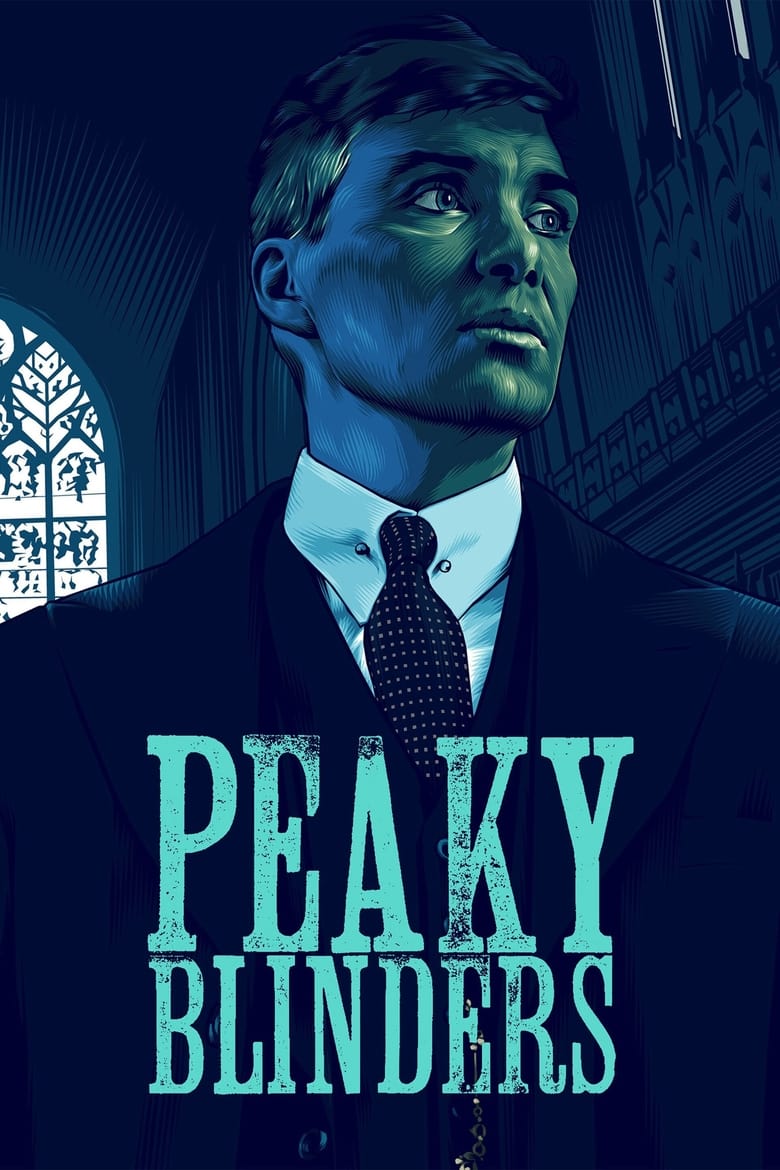
PEAKY BLINDERS
About the Peaky Blinders font
Peaky Blinders uses a stark condensed sans over grit. Oswald recreates its cold, industrial menace.
What font is used in the Peaky Blinders logo?+
The original Peaky Blinders logo uses custom lettering. This generator recreates the look with Oswald — a free, open-license font you can style and download.